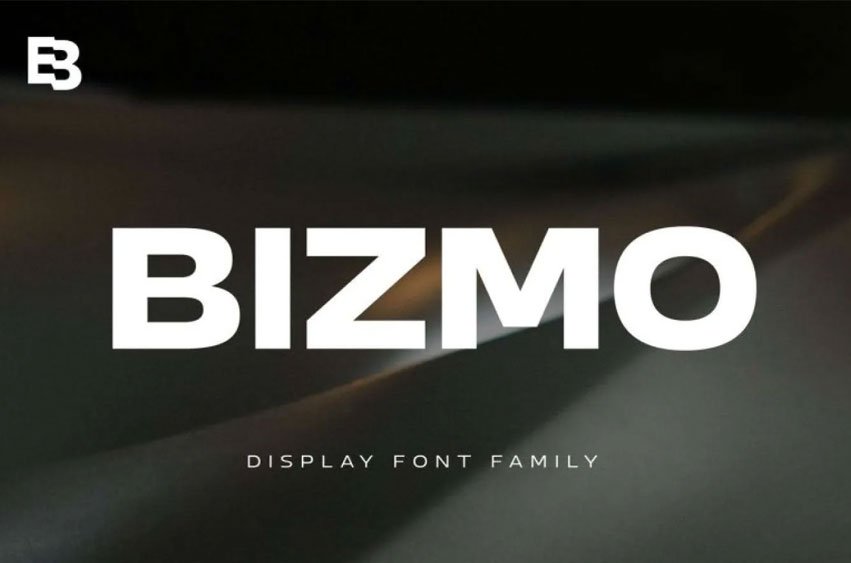
Bizmo Font
Bizmo Font family has been designed for display use, with its letters being wide enough for use in long or large Swiss locations. Bizmo has nine styles with accompanying oblique styles.
Most of the available uppercase characters can be further amplifying by simply copying or even pasting the letter and then applying the discretionary ligature; the font includes 420 characters, which makes it suitable for most Latin-based languages.